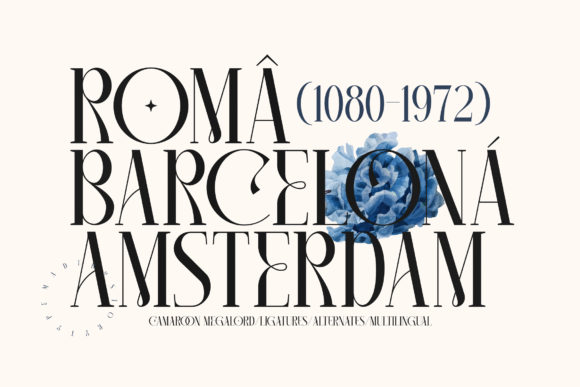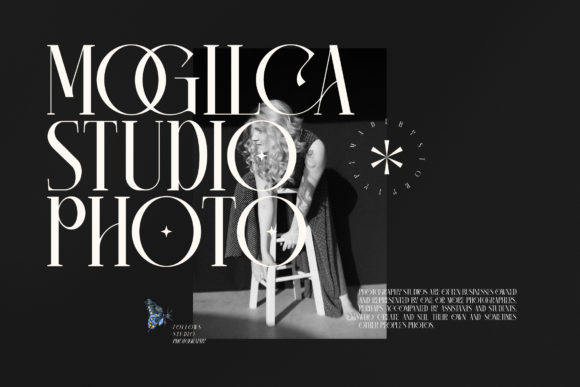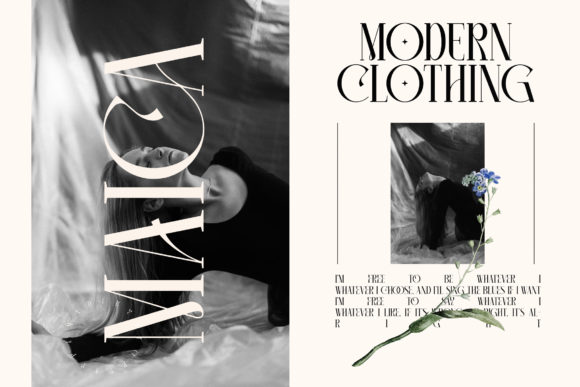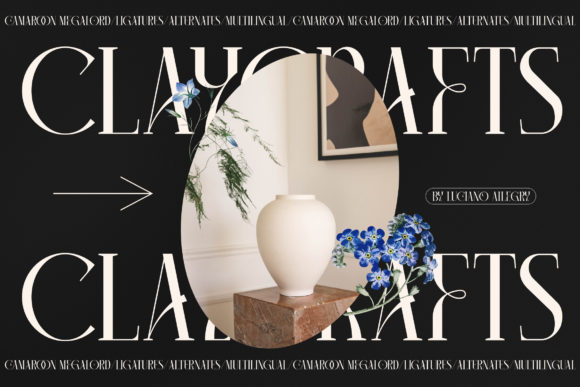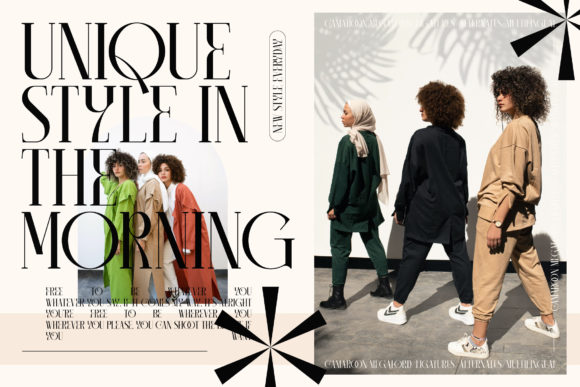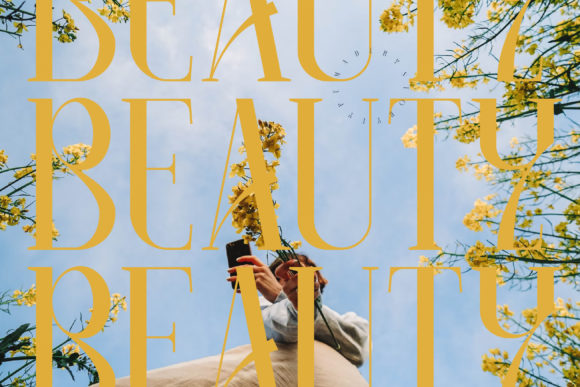
Introduction to Camaroon Megalord Font
Camaroon Megalord is a stylish and cool serif font.
This typeface is perfect for an elegant & luxurious logo, book or movie title design, fashion brand, magazine, clothes, lettering, quotes, and so much more .